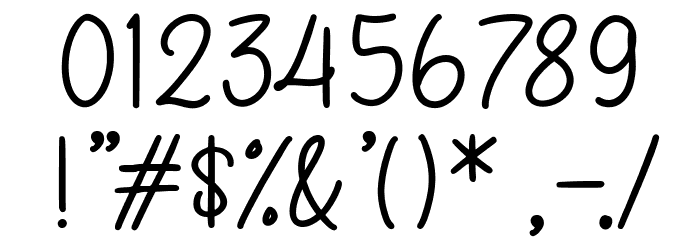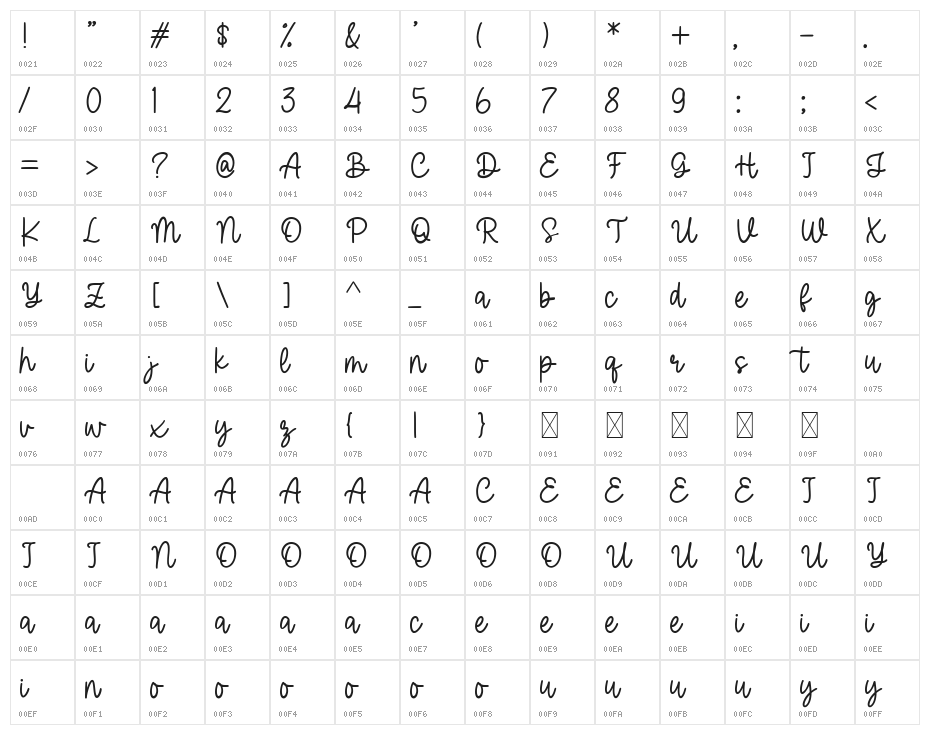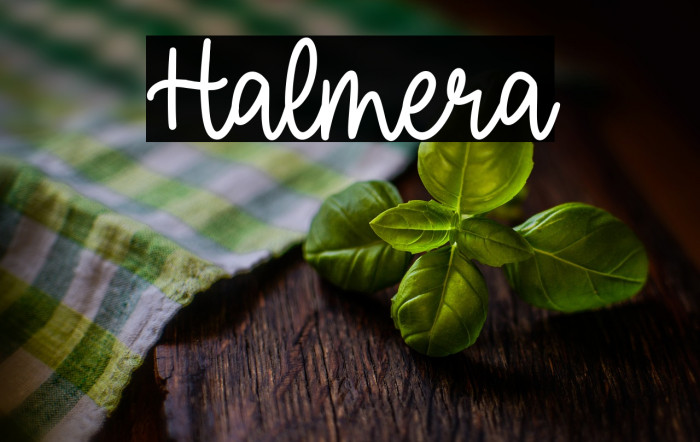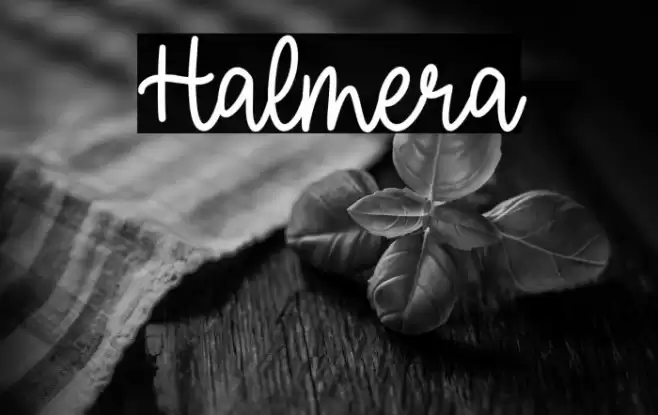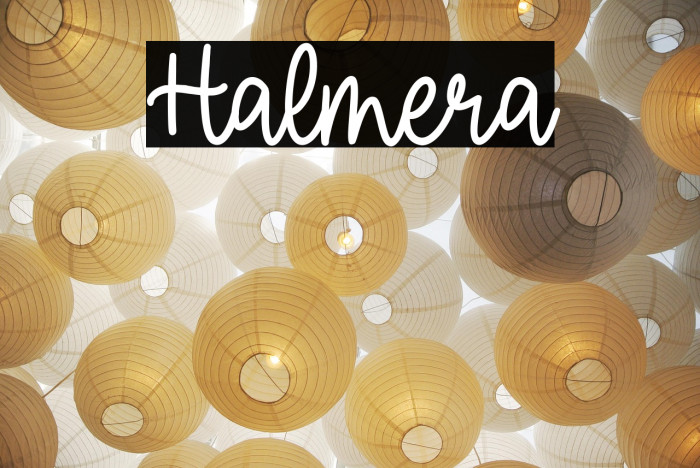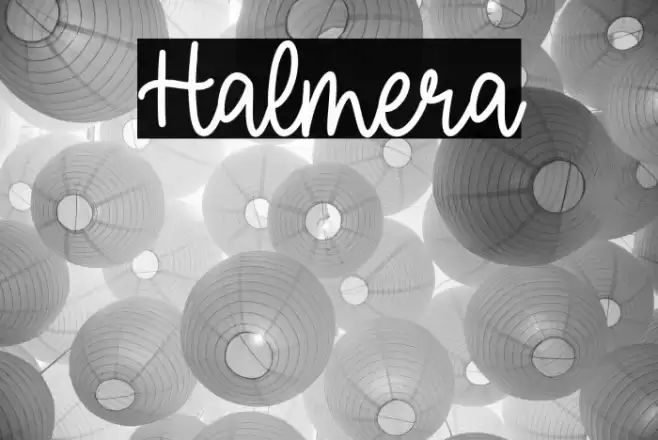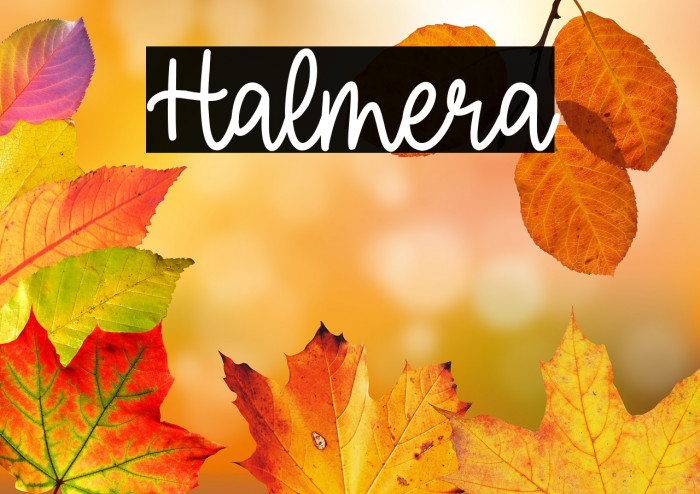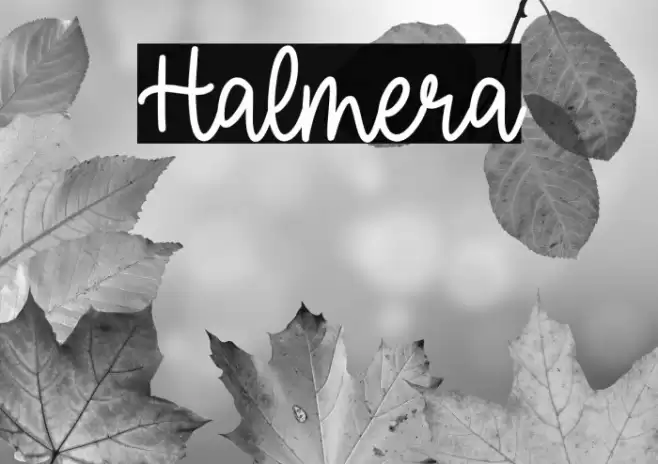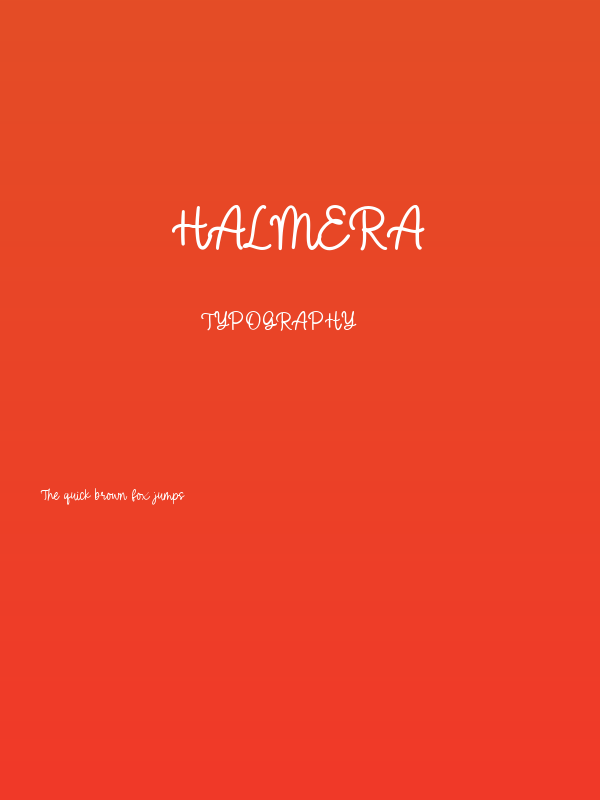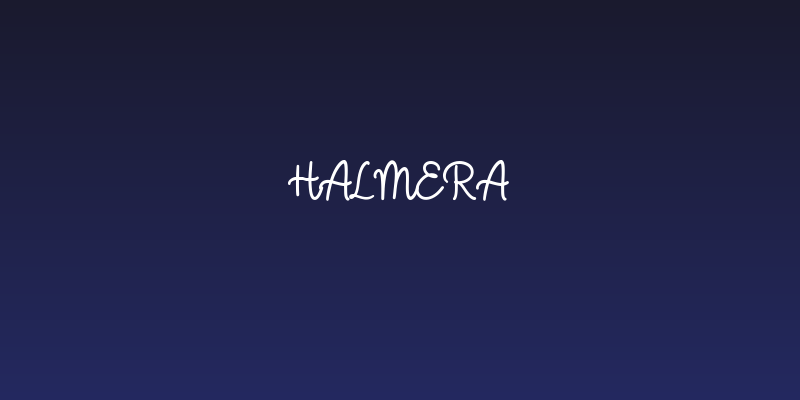
Halmera Font
Halmera Description
This font exudes a playful and casual handwritten style, characterized by its fluid and connected strokes. The uppercase letters maintain a consistent height, while the lowercase letters exhibit a charming irregularity, adding to its informal appeal. The numerals are clear and legible, matching the overall style of the alphabet. Special characters are included, maintaining the same playful aesthetic. The strokes are moderately thick, providing good readability without sacrificing the font's whimsical nature. This font is ideal for projects that require a personal touch, such as invitations, greeting cards, or social media graphics.